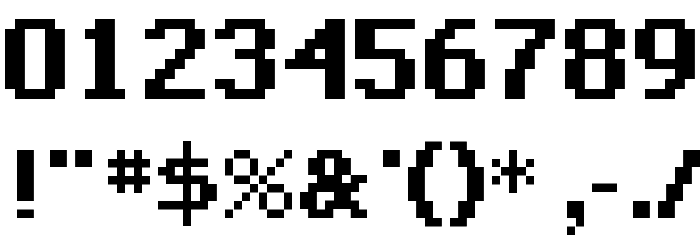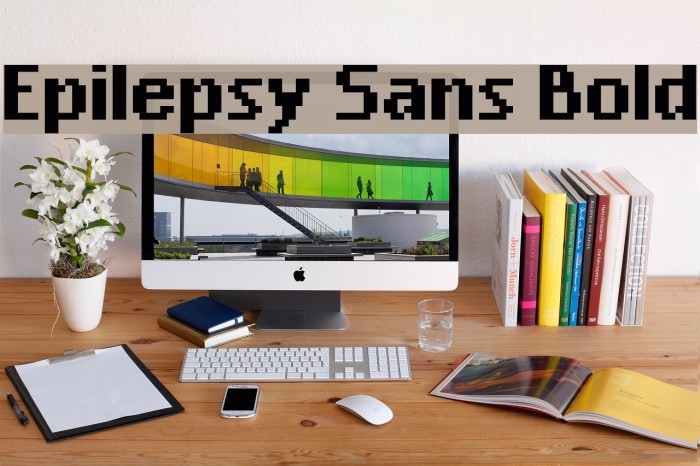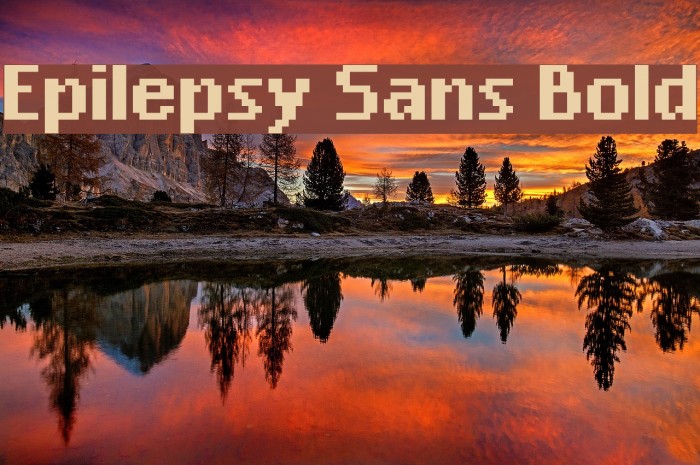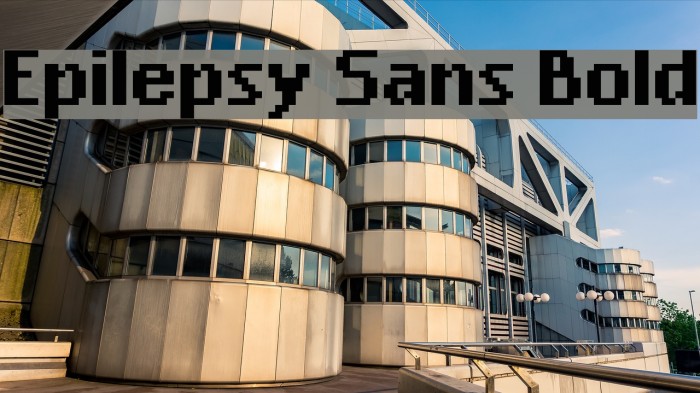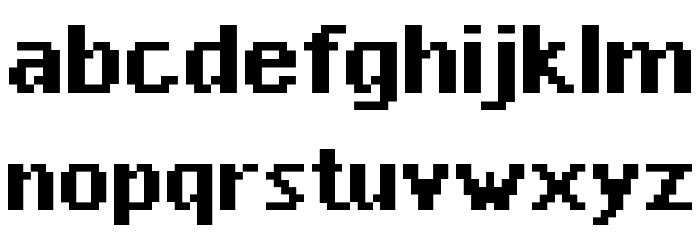
Epilepsy Sans Bold Font
This font features a bold, pixelated design reminiscent of early digital displays and video game graphics. Each character is constructed with a blocky, grid-like structure, giving it a distinctly retro and digital feel. The uppercase and lowercase letters maintain a consistent height, contributing to a uniform appearance across text. Numbers and special characters follow the same pixelated style, ensuring visual coherence. The font's boldness makes it highly legible, even at smaller sizes, while its unique style adds a playful, nostalgic touch to any design.
• Proposed Projects: Ideal for video game design, retro-themed posters, digital art projects, and any creative work that seeks to evoke nostalgia for early computing and gaming eras.
• Category: Decorative/Display
• Overall Style: Retro, Digital